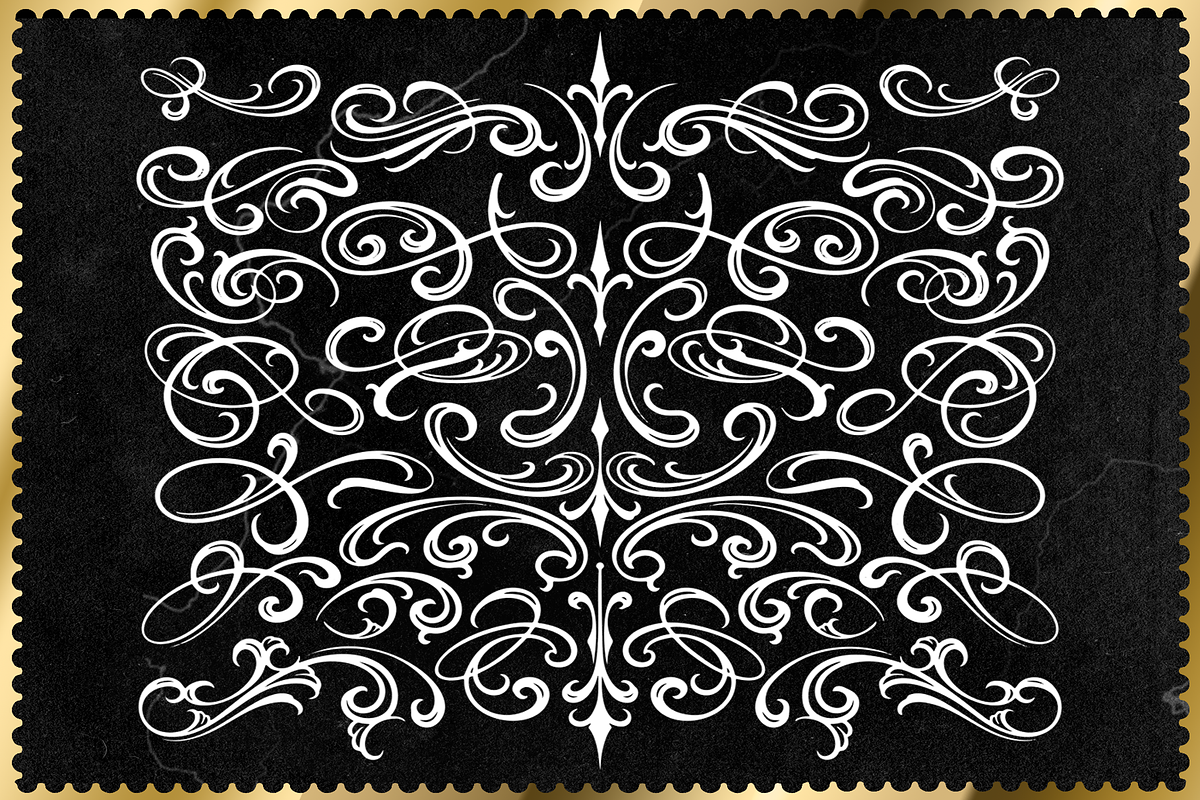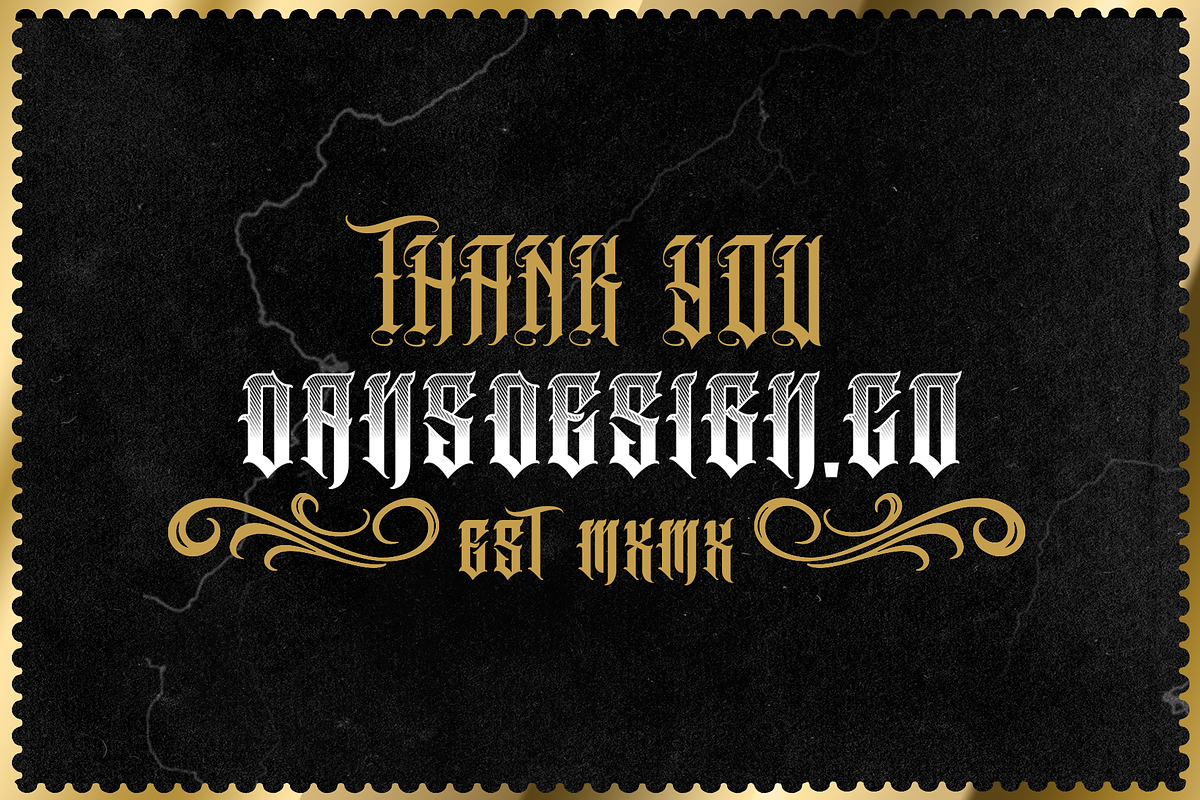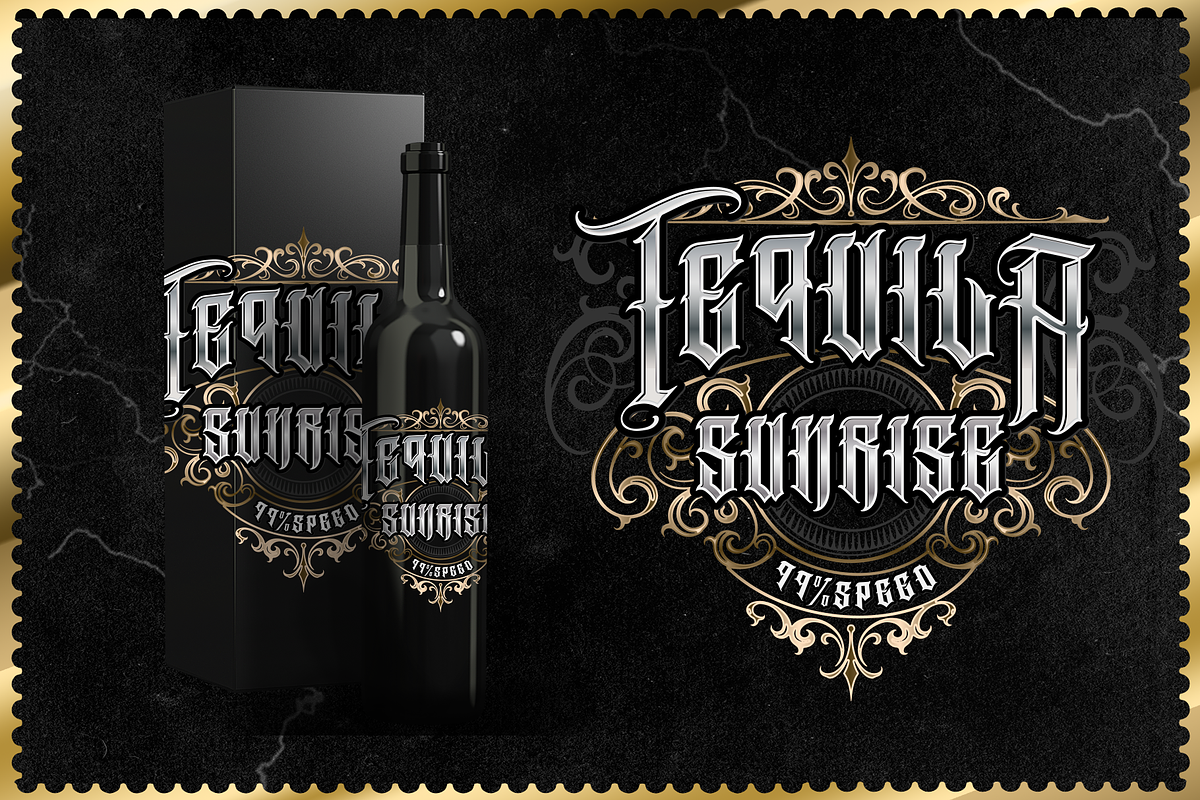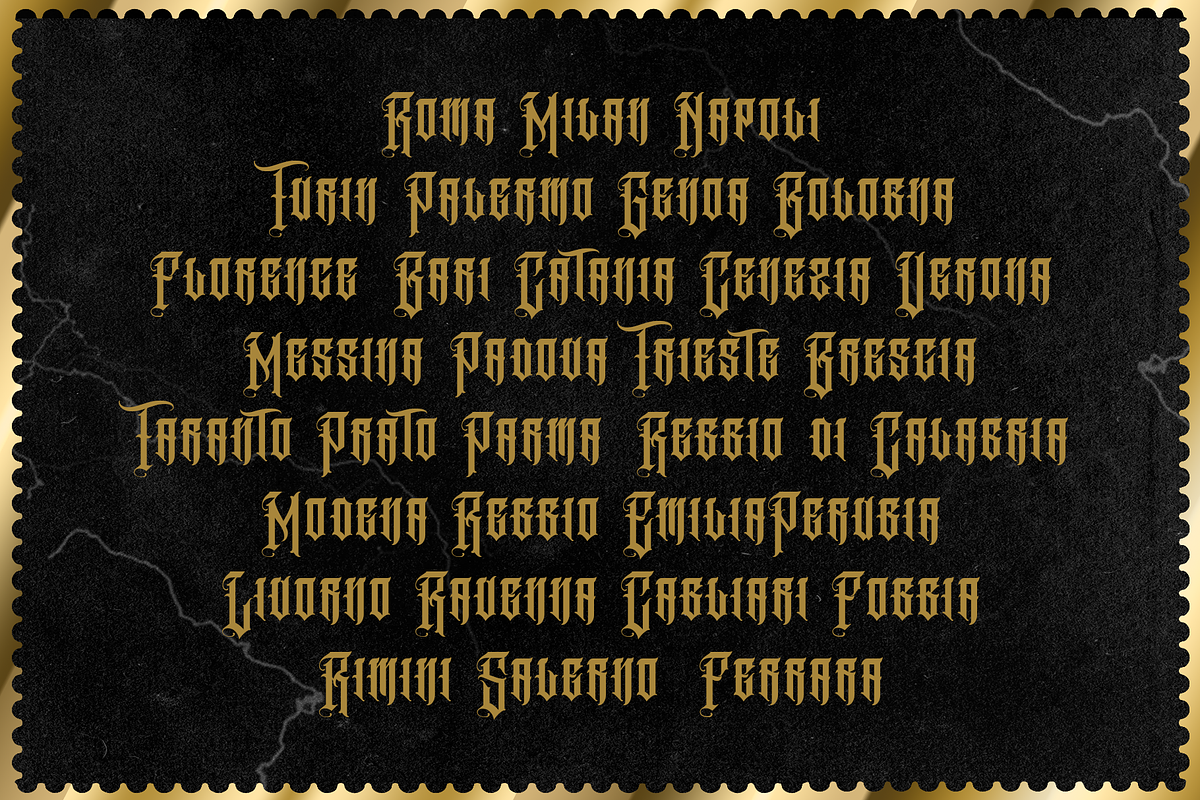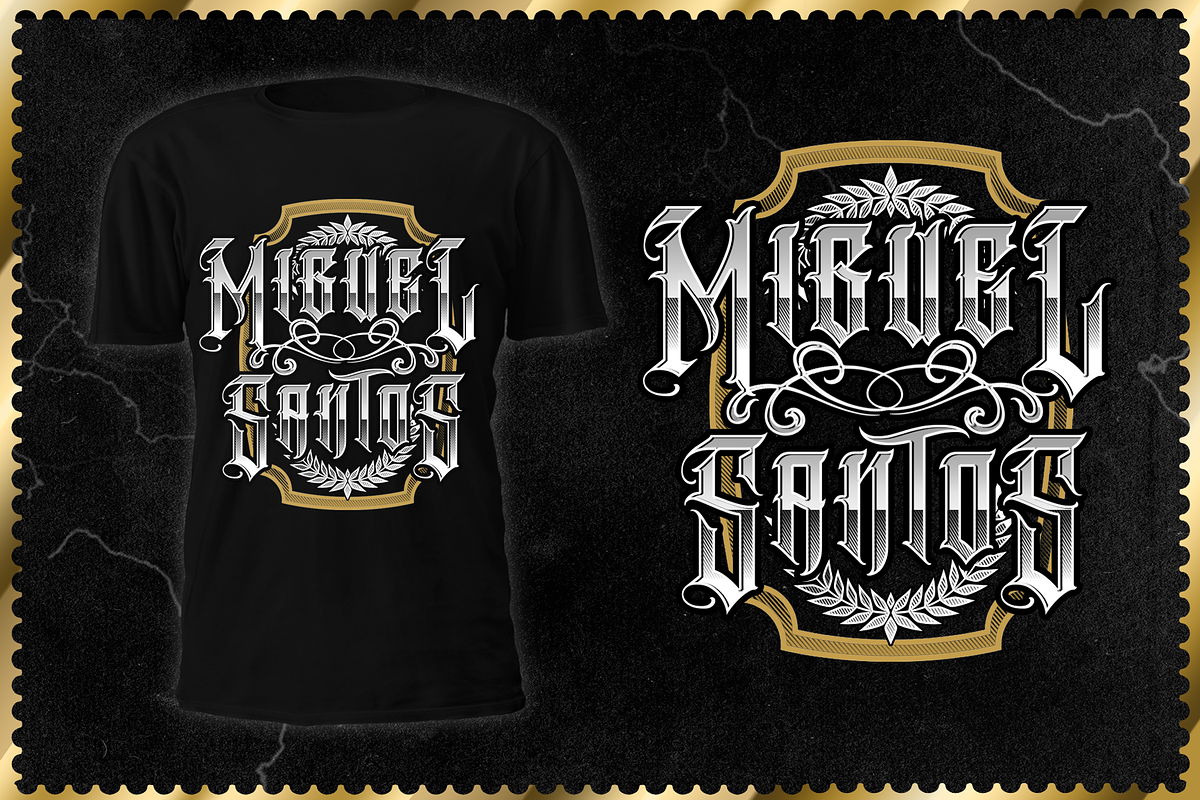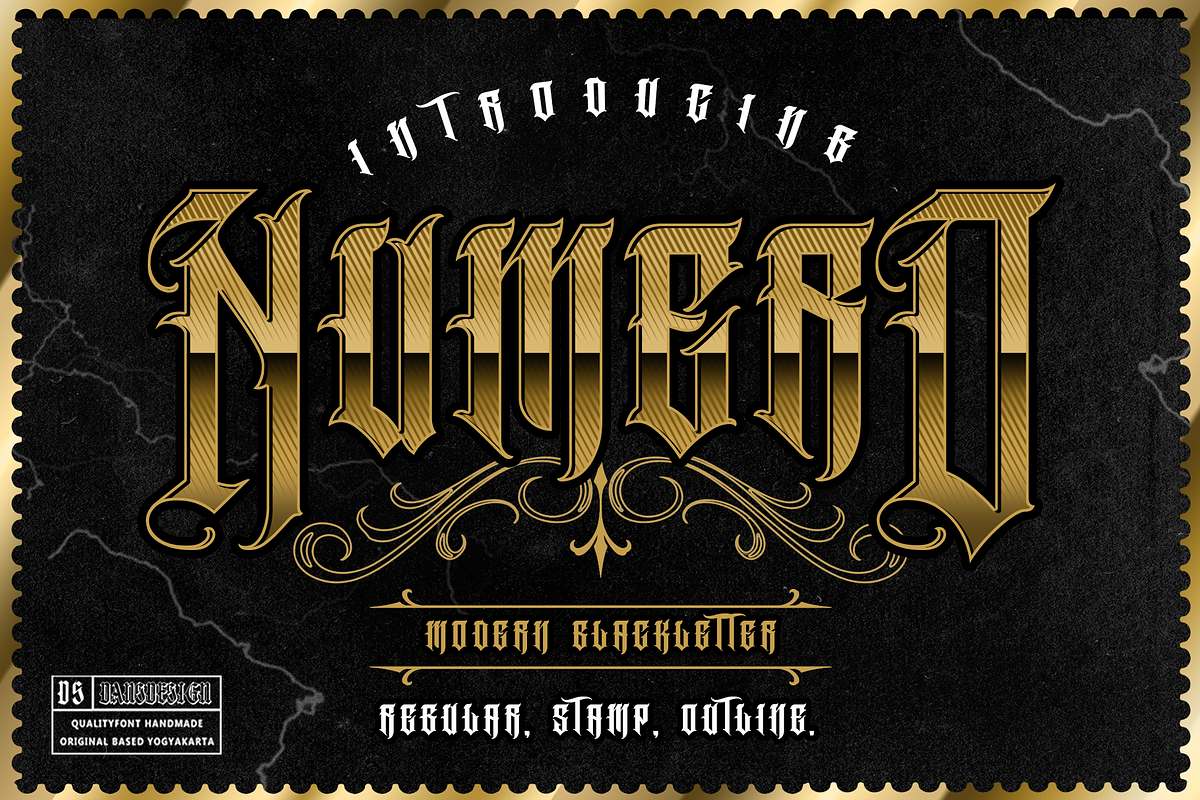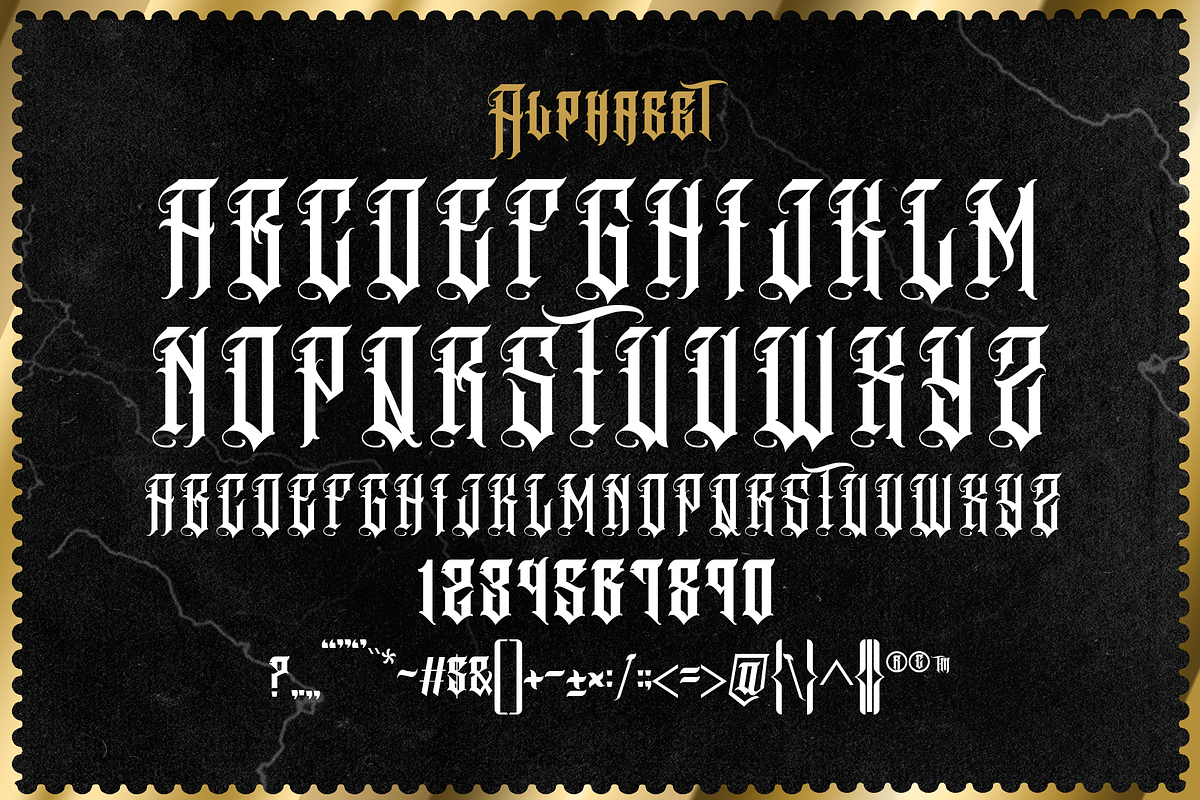
NUMERO
Dansdesign Proudly present NUMERO modern blackletter font, This font is made with references to various letters that I combine and design with my style.
NUMERO are great and usefull for product logo, poster title, headline, packaging, badge, wedding card logo, clothing brand logo, Vintage design and much more